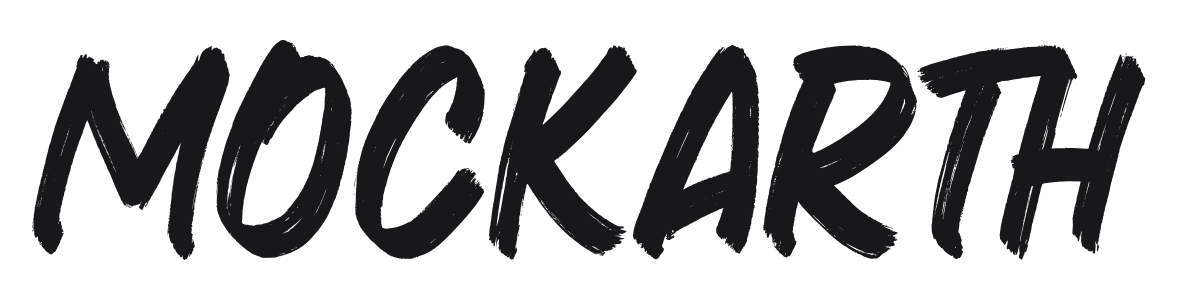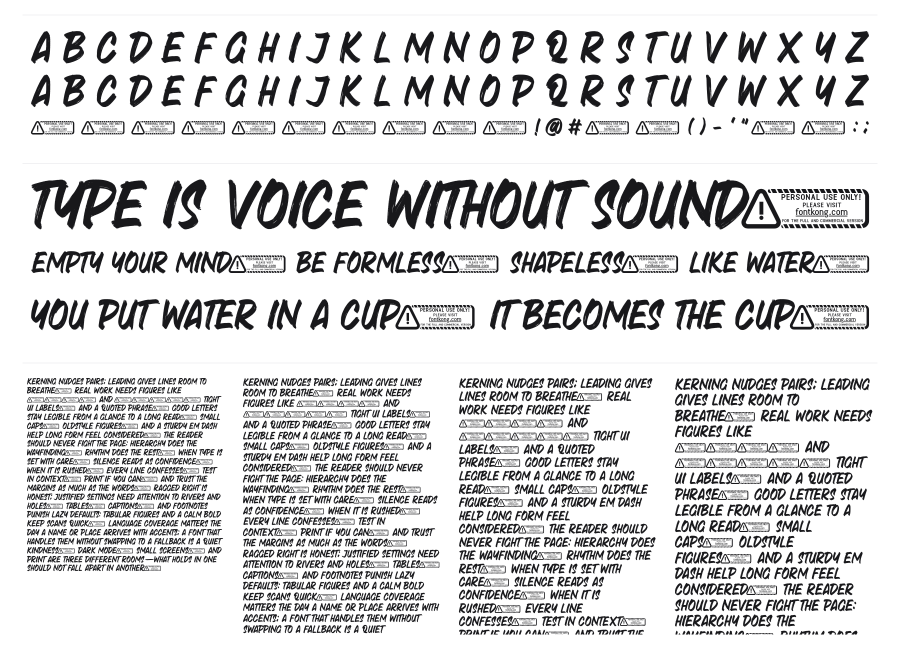
Mockarth
Mockarth is a bold brush script with heavy, ink-laden strokes and visible bristle texture that give it a raw, hand-painted energy. The strong italic lean and thick connected characters read like something painted quickly on a wall or screen-printed on a jersey. It carries real weight for sports branding, music packaging, and anything that needs attitude over refinement.